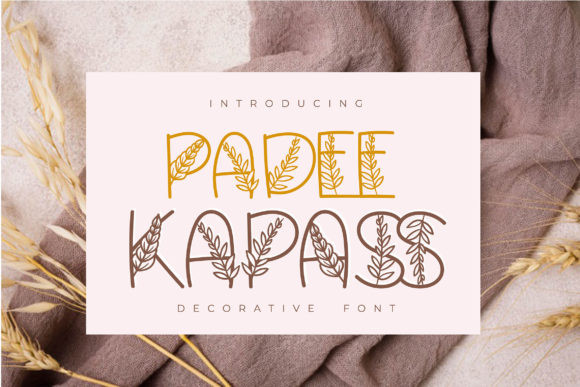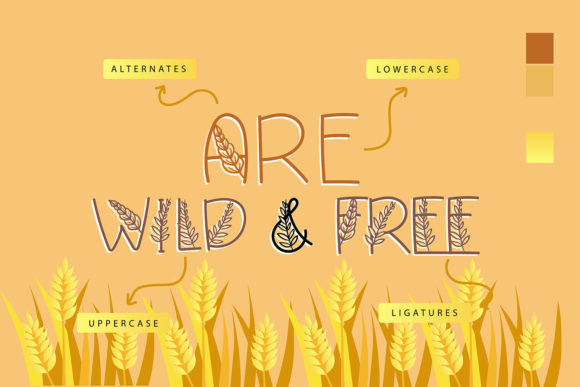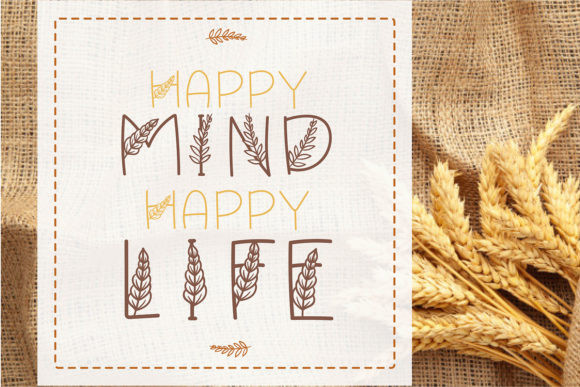
Padee Kapass Font
Padee Kapass is an organic and beautiful decorative font, featuring lovely ornaments. No matter the topic, this font will be an incredibly asset to your fonts’ library, as it has the potential to elevate any creation.